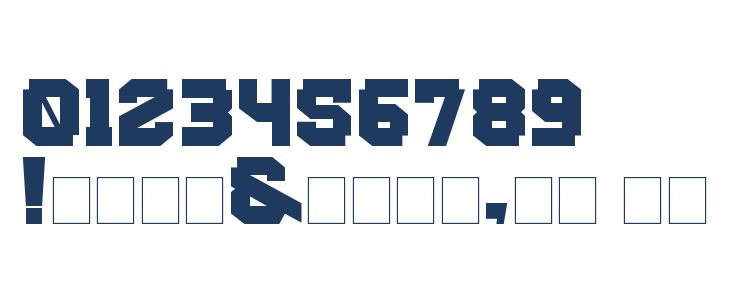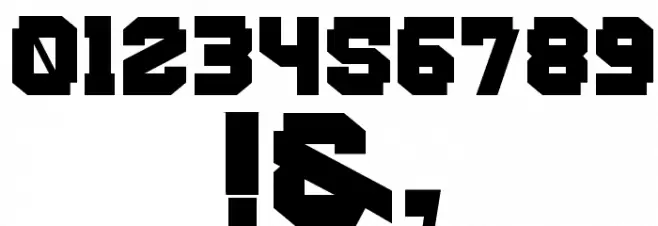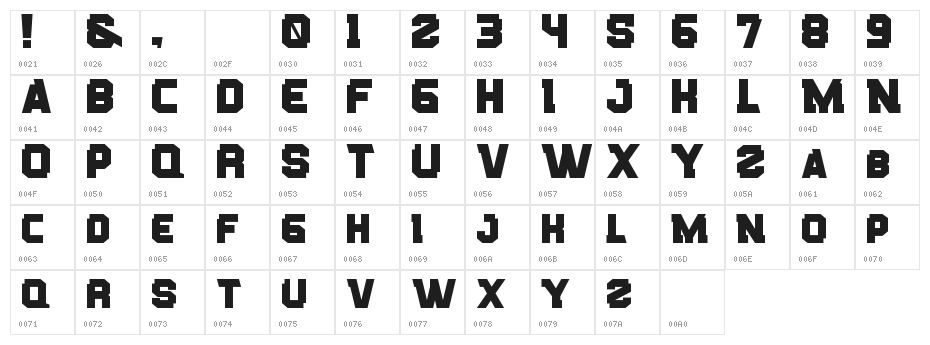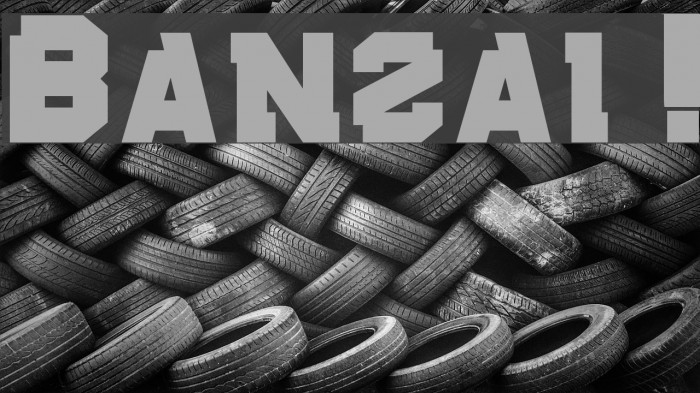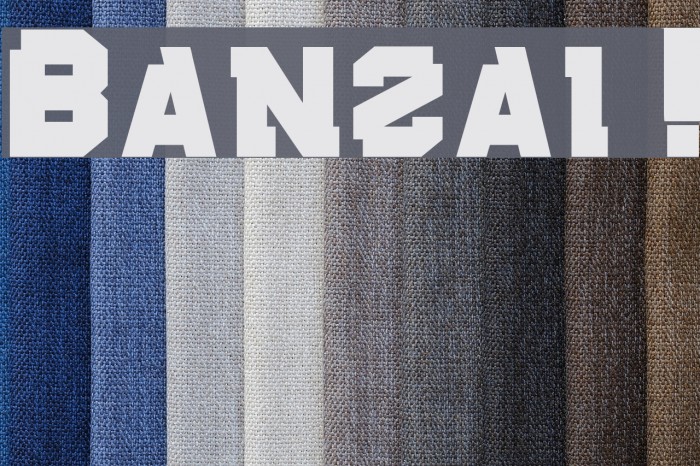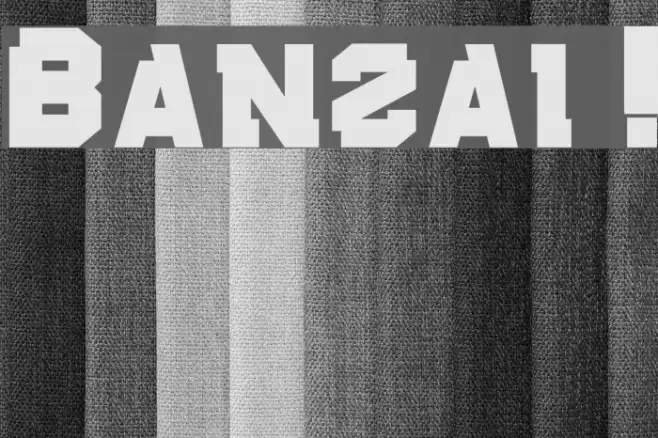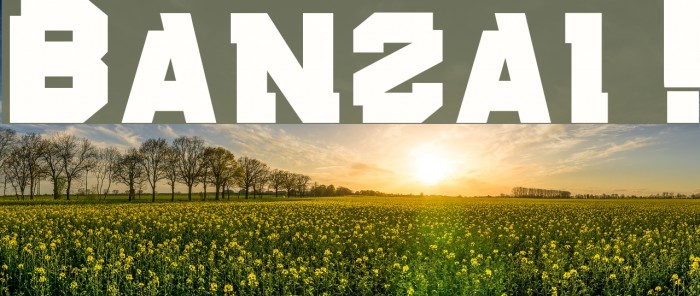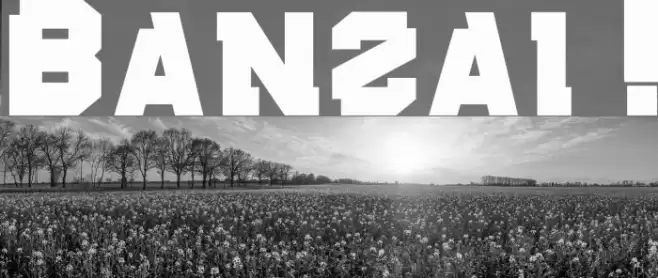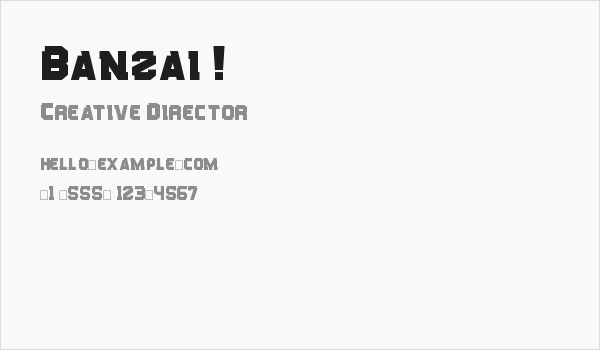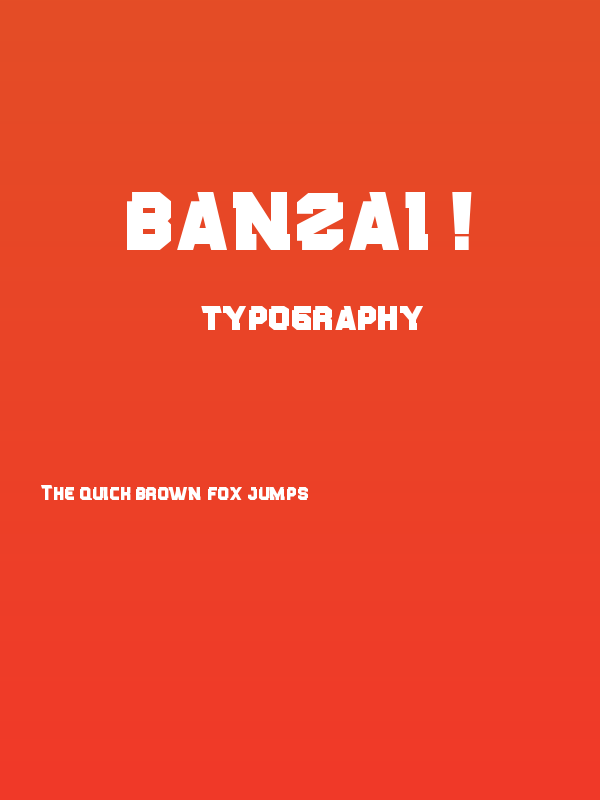
Banzai ! Font
Banzai ! Description
This font is characterized by its bold, geometric style with a strong presence and angular edges. The uppercase letters are blocky and robust, conveying a sense of strength and impact. The numbers and special characters maintain this bold aesthetic, ensuring consistency across all glyphs. The design is reminiscent of industrial or futuristic themes, making it suitable for projects that require a modern and assertive look. Its solid structure and uniformity make it ideal for attention-grabbing headlines or logos.
| Proposed Projects | Ideal for use in branding, posters, video game graphics, or any project needing a bold, modern aesthetic. |